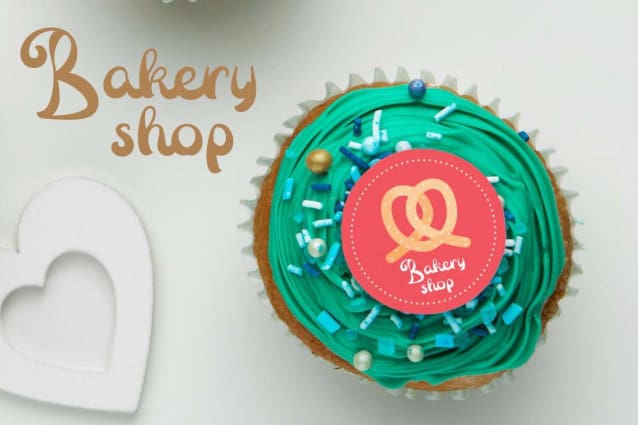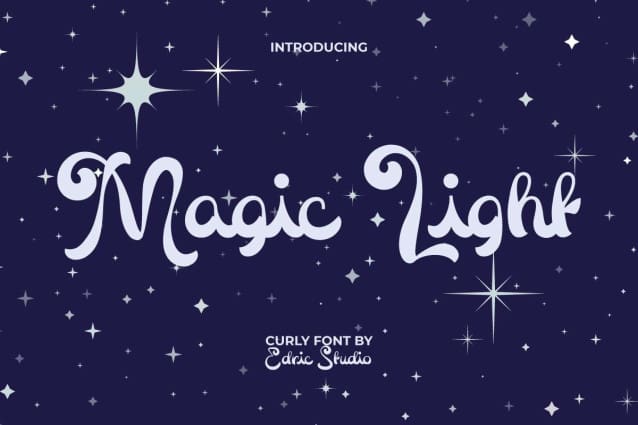
Magic Light Font
Magic Light Font is a beautiful curly display font with an amazing sparkling glow. This font is made by EdricStudio and would be ideal for bakery and pastry, café, event organizer, florist, furniture, glassware, handicraft, movie, something that is magic or wizard themed, restaurant, spa salon, writer, or anything else that requires an unique touch.
Magic Light Font comes with a full set of Uppercase and Lowercase Basic Characters, Number, Punctuation, Symbol and Alternate. It is a special hand lettering packed in a trendy and mysterious look. Inspired by fantasy magic related things so as to present perfection and be different. It can complement any project due to the spark it brings, including: billboard, brand logo, brochure, business card, calendar, cover, flyer, header, invitation, label, menu, poster, product packaging, quote, screen print, stationery, sticker, title, watermark, website, etc.